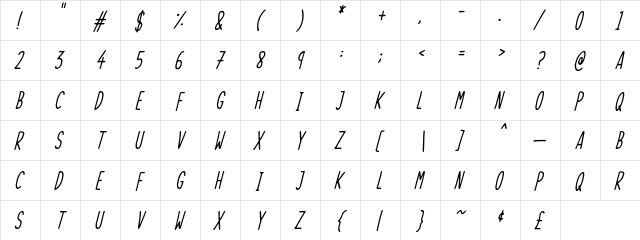
Skinny Things Italic Font Preview
Design Context for Skinny Things Typeface
Skinny Things takes a measured approach to typography — its balanced proportions and neutral character make it a reliable workhorse for both digital and print work. Its italic angle brings a sense of urgency and motion to the letterforms. Its slender proportions lend an understated elegance to any composition.
Pro Tip: Try Skinny Things for annotation and caption copy alongside an upright companion — the contrast in angle creates a dynamic but ordered typographic system.